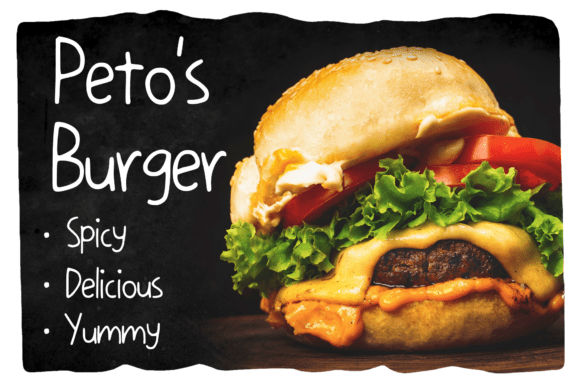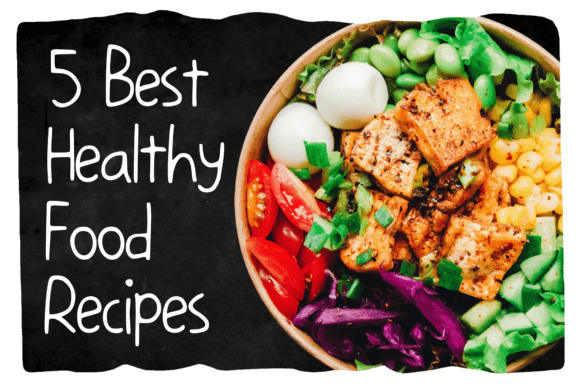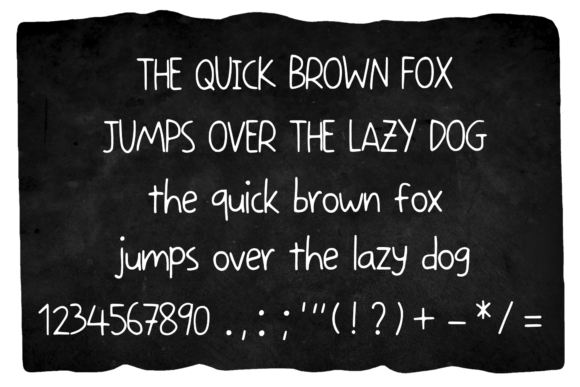
Aksara Script Font: Elevate Your Designs with a Fun and Cool Pen Font
Are you looking for a font that can add a super cool touch to your designs? Look no further than Aksara Script Font! This fun and cool daily use font is suitable for everyday use, making it perfect for a wide range of design projects. Whether you’re working on school projects, stickers, t-shirt designs, logo designs, or even magazine or book covers, Aksara Script Font is the perfect choice.
What is Aksara Script Font?
Aksara Script Font is a pen font that is designed to mimic the look of handwritten text. It’s a fun and playful font that is perfect for designs that require a personal touch. The font is highly legible and versatile, making it suitable for use in a variety of contexts. Whether you’re creating a logo, a poster, or a social media graphic, Aksara Script Font is a great choice.
Features of Aksara Script Font
Aksara Script Font has a number of features that make it a great choice for designers and crafters. Some of the key features include:
- Fun and playful design: Aksara Script Font has a fun and playful design that is perfect for adding a personal touch to your designs.
- Highly legible: The font is highly legible, making it easy to read in a variety of contexts.
- Versatile: Aksara Script Font is versatile and can be used in a wide range of design projects.
- Suitable for everyday use: The font is suitable for everyday use, making it perfect for school projects, stickers, t-shirt designs, and more.
Uses for Aksara Script Font
Aksara Script Font is a versatile font that can be used in a wide range of design projects. Some of the most popular uses for the font include:
- Stickers: Aksara Script Font is perfect for creating stickers that require a fun and playful design.
- T-shirt designs: The font is great for creating t-shirt designs that require a cool and casual look.
- Logo designs: Aksara Script Font can be used to create amazing logo designs that require a personal touch.
- Magazine or book covers: The font is suitable for use in magazine or book covers that require a fun and playful design.
- Comics and cartoon drawings: Aksara Script Font is perfect for creating comics and cartoon drawings that require a fun and playful design.
Why Choose Aksara Script Font?
There are many reasons why you should choose Aksara Script Font for your design projects. Some of the key benefits include:
- Adds a super cool touch: Aksara Script Font adds a super cool touch to your designs, making them stand out from the crowd.
- High-quality design: The font has a high-quality design that is perfect for professional-looking designs.
- Versatile: The font is versatile and can be used in a wide range of design projects.
In conclusion, Aksara Script Font is a fun and cool daily use font that is perfect for a wide range of design projects. Its highly legible and versatile design makes it suitable for use in stickers, t-shirt designs, logo designs, magazine or book covers, comics, cartoon drawings, and many more. With its super cool touch and high-quality design, Aksara Script Font is a great choice for designers and crafters who want to elevate their designs to the highest level.